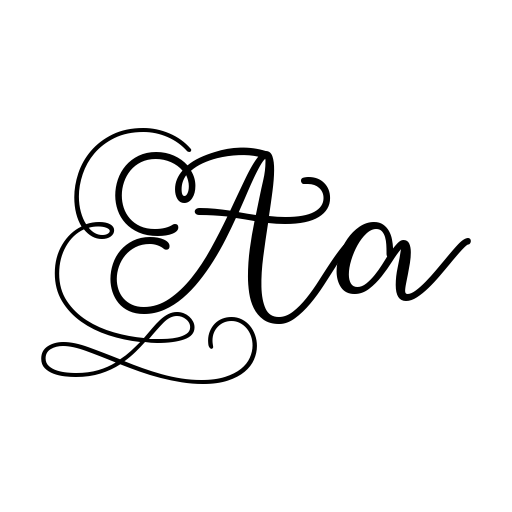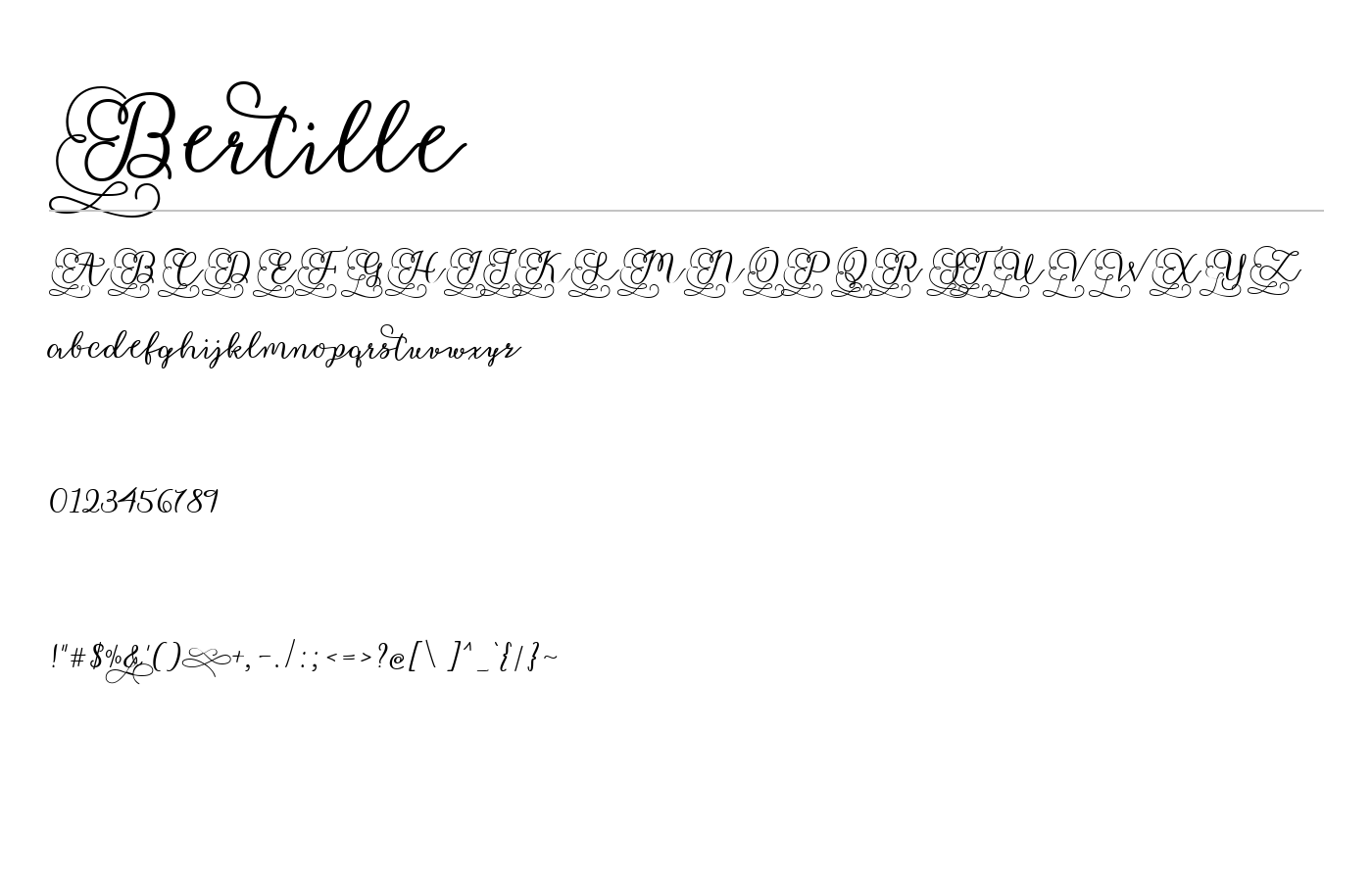
Bertille is a delicate, elegant script font featuring ornate, highly decorative uppercase letters with graceful loops and flourishes, paired with a smooth, flowing lowercase that offers readability and charm. Its thin strokes and refined style make it perfect for luxury branding, wedding invitations, and sophisticated editorial designs where a romantic and stylish touch is desired. This font excels in creating a refined and feminine atmosphere, adding a unique flair to any project needing a classic yet artistic presence.
Bertille Font
About Bertille Font
| Font family | Bertille Font |
| Designer | Misti's Fonts |